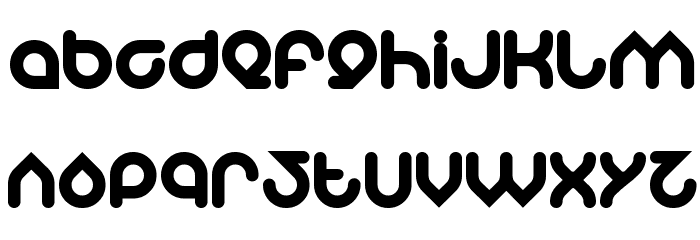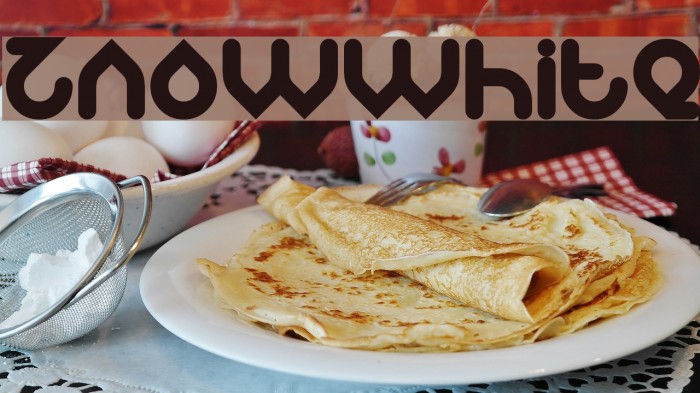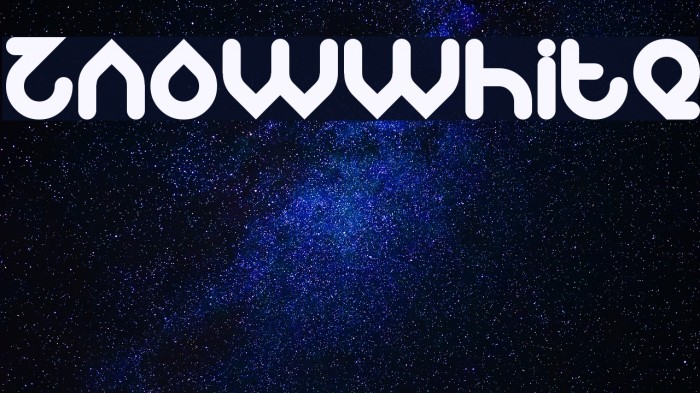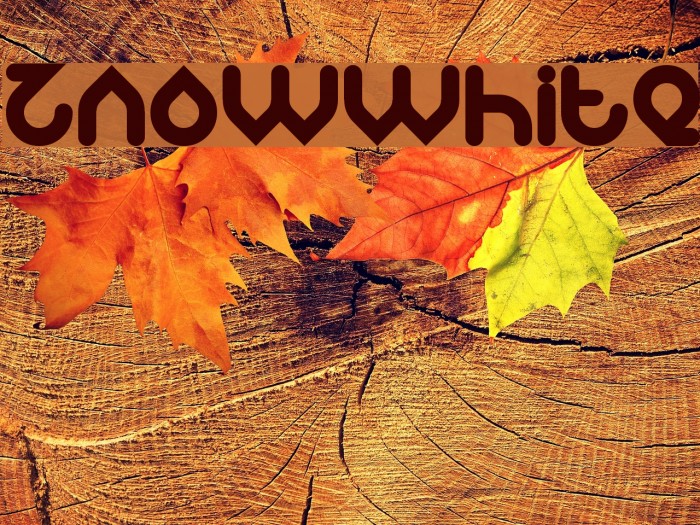
znowwhite Font
This font features a bold, rounded style with a futuristic and playful appearance. The characters are constructed with consistent stroke thickness, giving it a uniform look. The rounded edges and geometric shapes create a friendly and approachable feel. The uppercase and lowercase letters share similar design elements, maintaining a cohesive aesthetic throughout. The font's unique style makes it stand out, particularly with its distinctive curves and angles that add a modern twist. It lacks traditional serifs, emphasizing its contemporary design. The overall impression is one of creativity and innovation, making it suitable for various artistic applications.
A bold, rounded font with a futuristic and playful design.
- Proposed Projects: Ideal for branding, logos, posters, and creative digital projects.